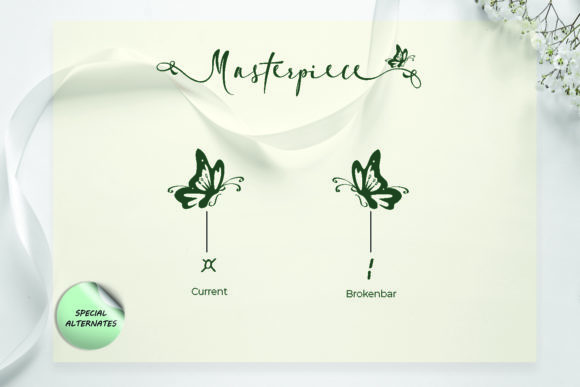
About Masterpiece Font
Masterpiece is an incredibly elegant and romantic handwritten font. Get inspired by its authentic feel and use it to create outstanding wedding invitations, birthday cards and any other project that you wish to remain unforgettable.